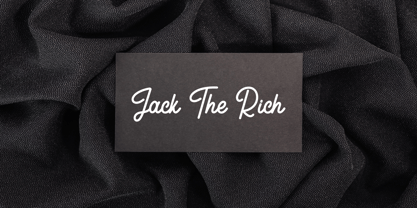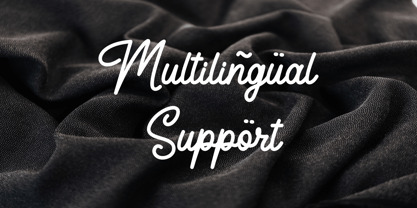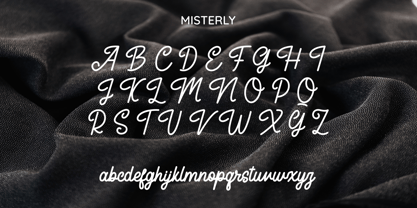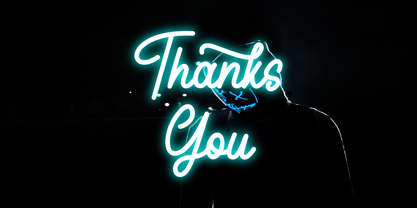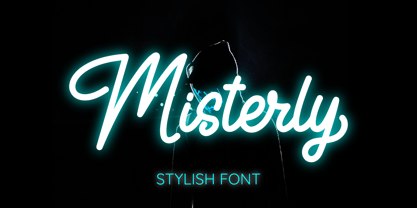
Misterly
by Dilbadil
The Misterly Font Family was designed by Abdillah Abdi and published by Dilbadil. Misterly contains 1 styles.
Introducing Misterly Font: A Monoline Masterpiece!
Hello everyone! I'm excited to present my latest creation, Misterly Font, a stylish and versatile monoline typeface. Designed with simplicity and elegance in mind, Misterly offers a modern aesthetic that seamlessly blends with a wide range of creative projects.
This font's clean lines and balanced curves make it perfect for t-shirt designs, stickers, book covers, logotypes, neon signs, and so much more. Whether you're crafting eye-catching branding or adding a touch of class to digital and print media, Misterly delivers a timeless appeal.
Misterly Font is easy to read and adapts well to both large and small text sizes, ensuring that your designs stand out with clarity and style. From bold headlines to subtle accents, this font provides endless design possibilities.
Add a fresh and modern vibe to your next project with Misterly Font, where simplicity meets sophistication!
Features:
• Alternates
• Ligature
• Multilingual
Based in Yogyakarta, Indonesia, Abdillah Abdi started his career in typography design in 2018. He studies typography and font creation through ebooks, social media and the font learning community in Indonesia.In 2020 Abdillah Abdi created a studio called Dilbadil. With a high enthusiasm for learning and determination, finally he can produce several fonts in several marketplaces. Typography and font creation are what I really like and I really enjoy them.